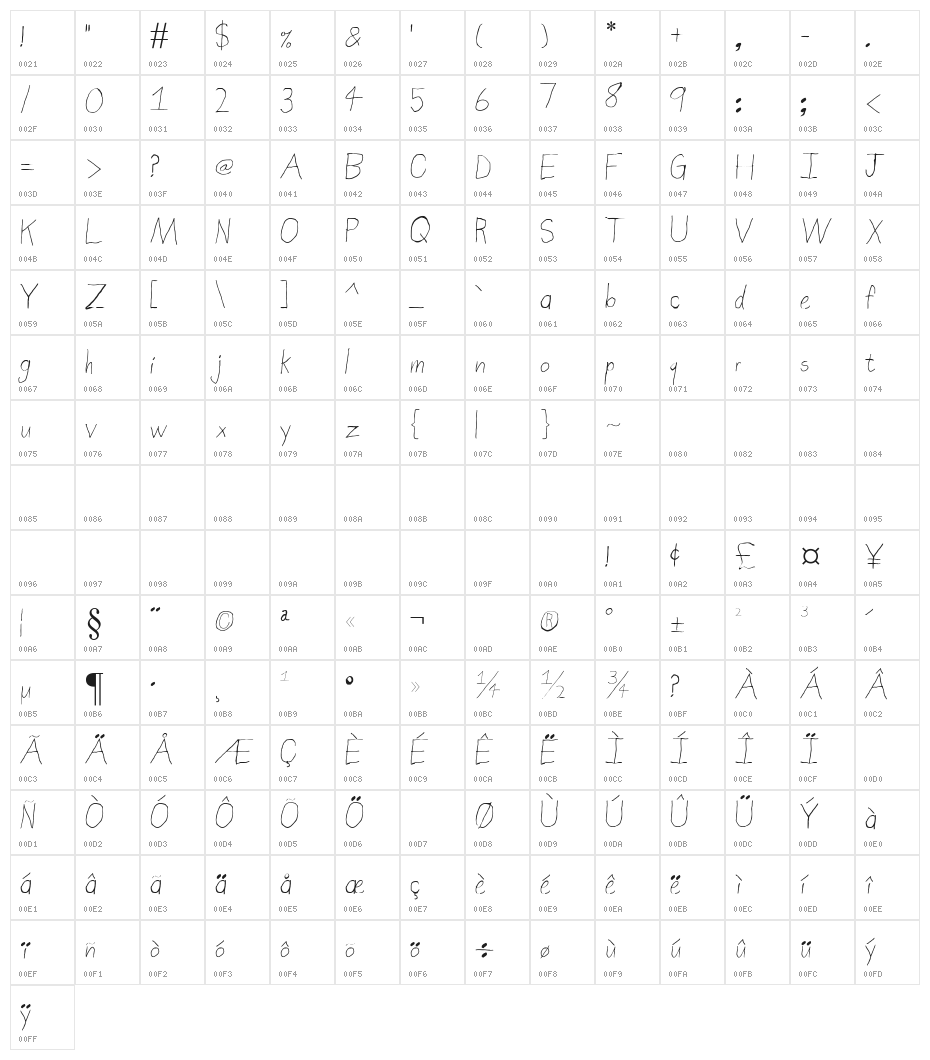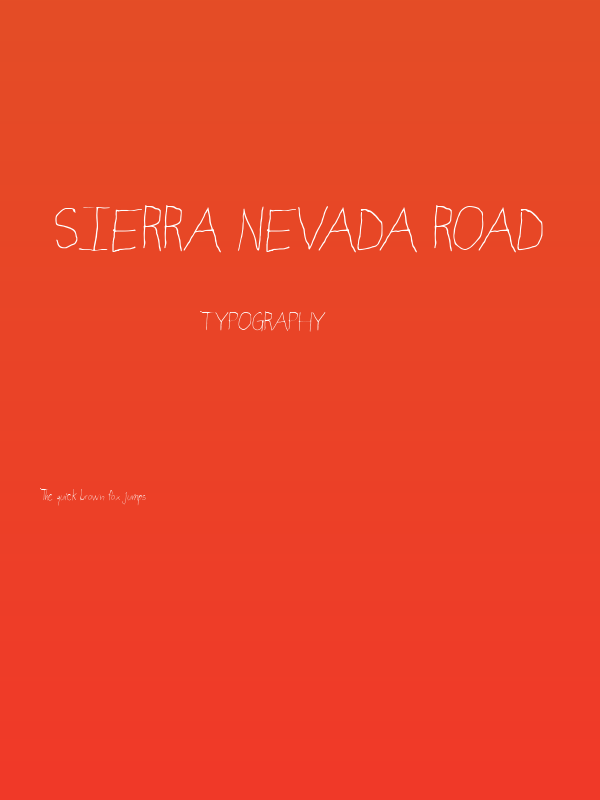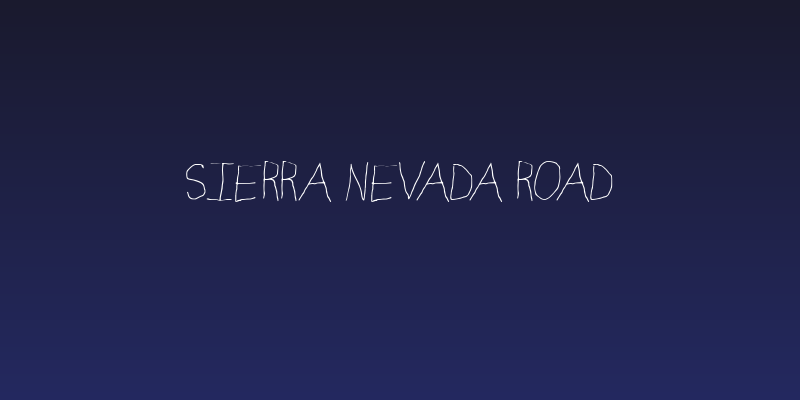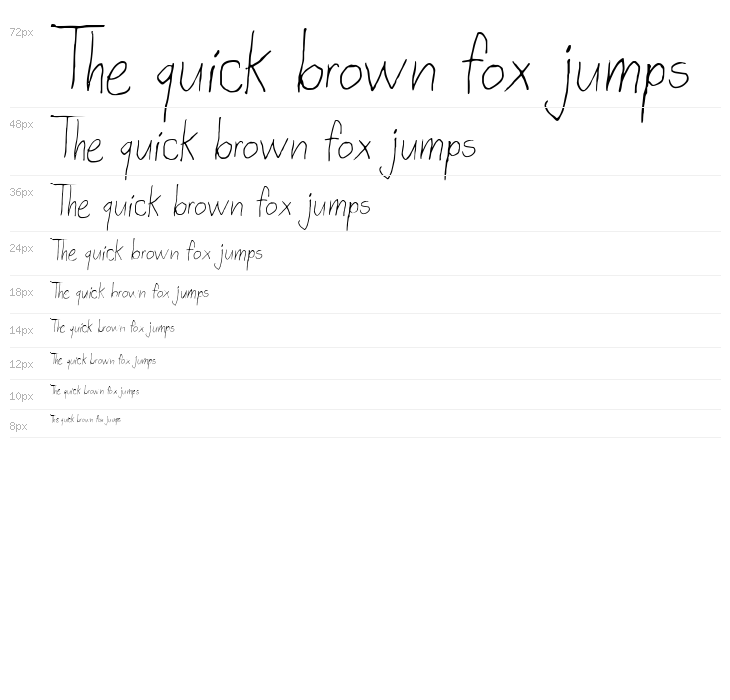
Sierra Nevada Road Font
Sierra Nevada Road Description
This font features a handwritten style with a casual and organic feel. The characters are unevenly spaced, giving it a natural, human touch. The strokes are thin and slightly irregular, mimicking the imperfections of writing by hand. The uppercase letters are tall and narrow, while the lowercase letters maintain a consistent height, adding to the font's informal appearance. Numbers and special characters follow the same handwritten aesthetic, making it versatile for creative projects.
| Use Case | Logos, Invitations, Personal notes |
| Proposed Projects | Ideal for personal notes, greeting cards, informal invitations, and creative branding projects. |